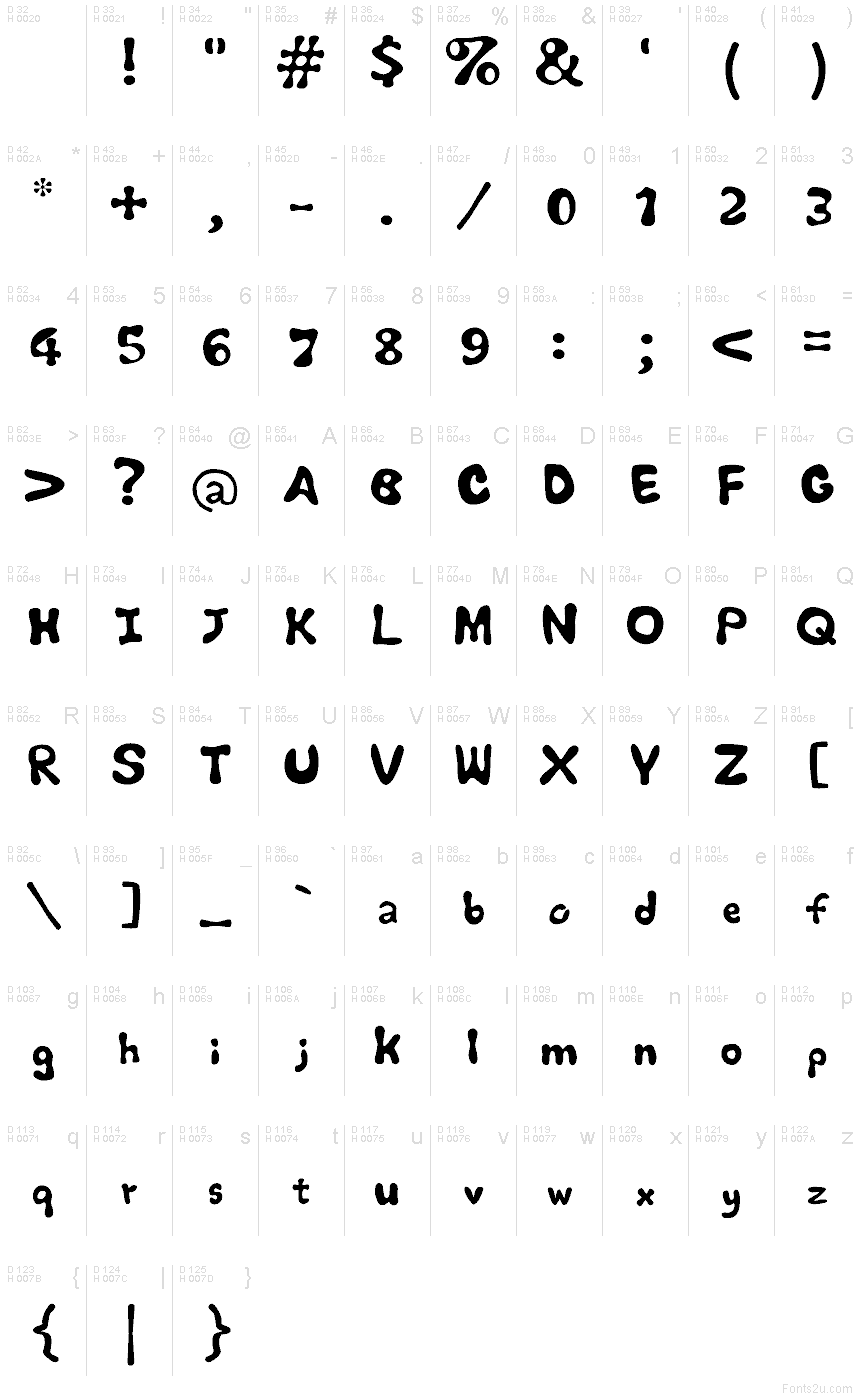
CBeebies Regular
CBeebies font by Élise Benoît Fonts is a free cartoon display typeface that feels soft, bouncy, and full of energy. Its chunky, bubble-like shapes and smooth, inky curves look like they’ve been squeezed out of a marker pen, giving text a friendly, approachable feel that kids gravitate toward. The irregular letter widths add a playful wobble that makes every word feel like it’s in motion.
Using CBeebies, you can bring instant charm to children’s logos, TV or YouTube channel branding, birthday invitations, classroom posters, game titles, and kid-focused app interfaces. This free font shines at larger sizes where its rounded forms and generous counters can really breathe. For longer text or small labels, pair it with a simple rounded sans-serif to keep everything readable while letting CBeebies handle the fun headlines.